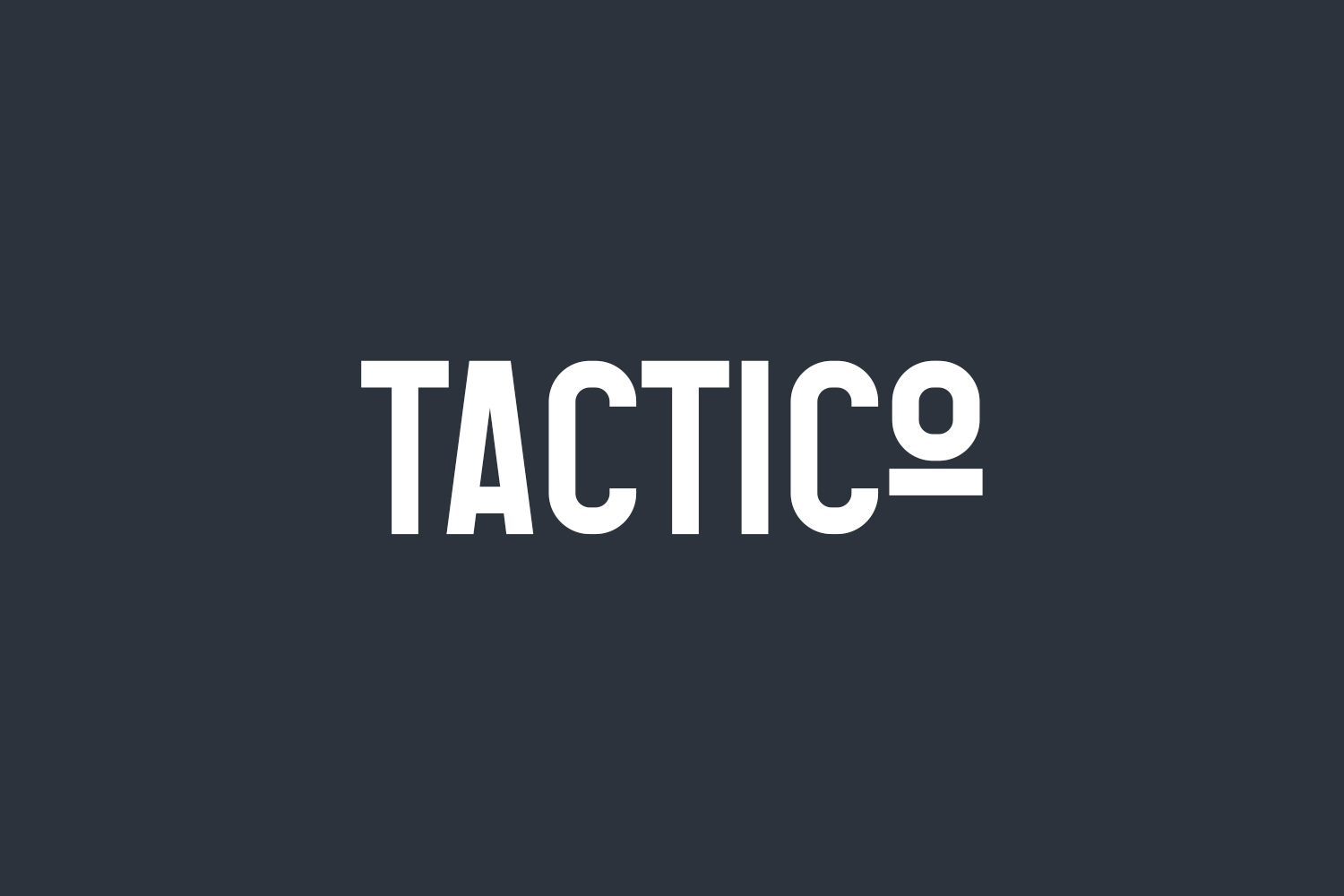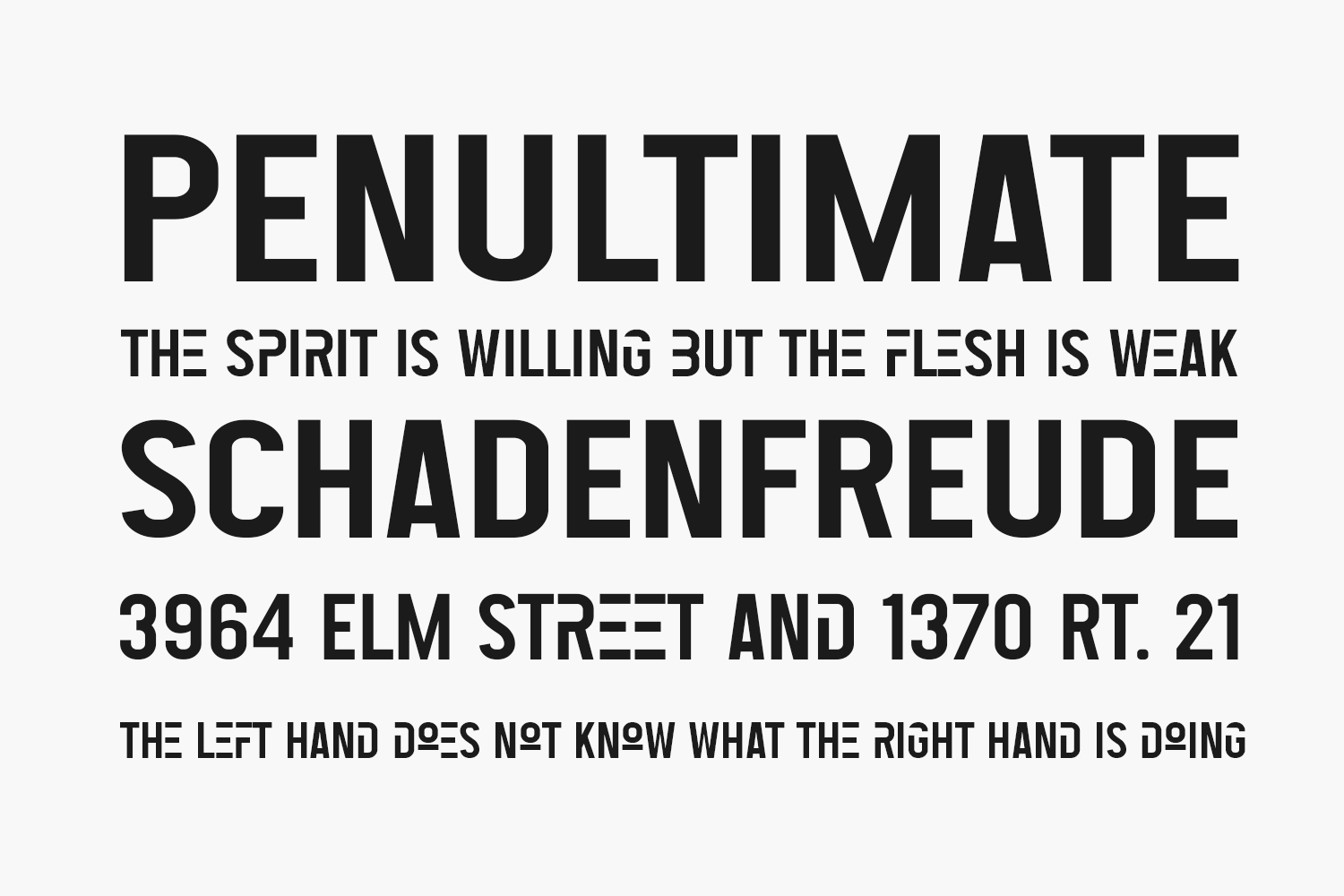
Tactico Free Font Family is a cool, brushed, and bold sans serif font. It will look stunning on any poster flyer or print. Tactico Free Font Family was designed by Salamahtype and is free for personal use only. Please purchase the full version for commercial use.